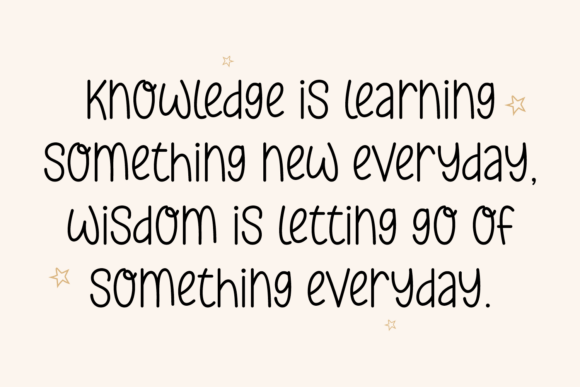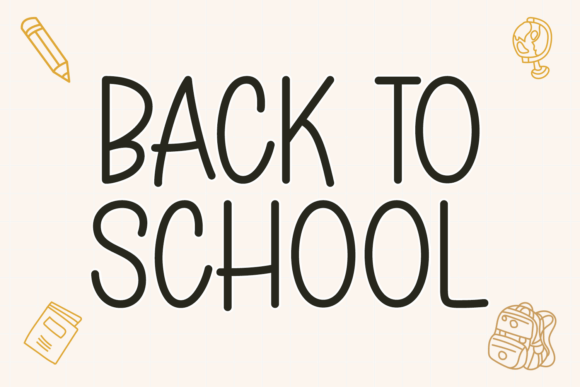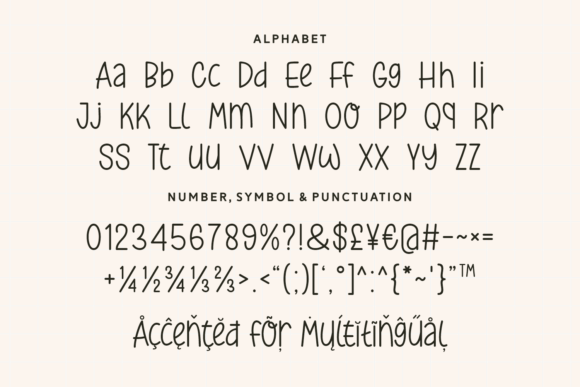
Introduction to School Jumping Font
Have you ever stumbled upon the perfect font that captures the essence of a carefree summer day? For designers, this can be a game-changer – it’s like stumbling upon a hidden treasure that instantly elevates your projects to the next level. And that’s exactly what the School Jumping Font does. This delightful, handwritten font is the perfect blend of whimsy and sophistication, making it an invaluable design resource for any creative project.
Whether you’re working on a children’s book, designing school-themed branding, or creating fun and playful apparel, the School Jumping Font is sure to bring a dash of energetic enthusiasm to your work. With its high-quality design and transparent background, this free download is a must-have for any designer looking to add a touch of youthful cuteness to their designs.
Key Features of School Jumping Font
- High-quality font with unique and playful design elements, perfect for a creative project.
- Unique characteristics include a bouncy, energetic feel and a range of fun, stylized characters.
Honest Review: School Jumping Font
I recently had the chance to work with the School Jumping Font, and I must say it’s a delightful addition to any creative project. The font is available for a free download, which is always a bonus for designers on a budget.
What works well about the School Jumping Font is its high quality design and versatility. It features a transparent background, making it easy to use on any color background. The font also comes in a range of styles, from casual to formal, making it suitable for a variety of creative projects.
- ✨ Unique and playful design
- ✨ High quality and crisp typography
- ✨ Transparent background for easy use
- ✨ Versatile font suitable for various creative projects
However, I did find a few limitations with the School Jumping Font. The font is not suitable for formal or professional projects, as it has a more playful tone. Additionally, the font may not be ideal for projects that require a lot of customization.
- ⚠️ Not suitable for formal or professional projects
- ⚠️ May require additional customization
Overall, I would recommend the School Jumping Font as a design resource for any creative project that requires a fun and playful tone. It’s a high-quality font that is easy to use and comes with a transparent background, making it a great addition to any design library.
The School Jumping Font is commonly used in educational materials, such as worksheets, posters, and presentations. It’s also suitable for creative projects, like party invitations, social media graphics, and product labels.
Getting the Most Out of It
To get the most out of the School Jumping Font, experiment with different font combinations, sizes, and colors. Consider pairing it with other playful fonts or using it in conjunction with graphics and images to add visual interest to your design.